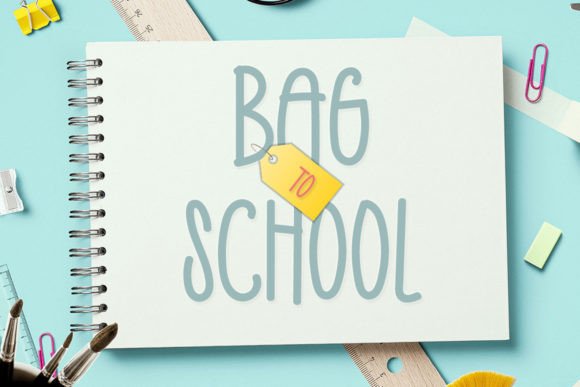
Prepare your designs for a delightful journey back to school with Bag to School Font, a charming handwritten script that exudes a playful and inviting ambiance. Picture the excitement of a new school year, the crisp autumn air, and the anticipation of learning and adventure. Let Bag to School Font capture this essence and bring a touch of enchantment to your projects.
Bag to School Font's playful loops and whimsical strokes create a sense of lightheartedness and joy. It's as if each letter is dancing across the page, eager to share its story. This font is perfect for capturing the essence of childhood, education, and the boundless possibilities that lie ahead.
Whether you're designing school supplies, classroom decorations, or personal stationery, Bag to School Font will add a touch of magic. Imagine your designs adorned with this enchanting script, each letter like a little work of art. Your creations will stand out, captivating the hearts of students and teachers alike.
Bag to School Font is also incredibly versatile, adapting effortlessly to a wide range of projects. Its graceful curves and elegant lines make it suitable for formal invitations, wedding stationery, and branding materials. It can also add a touch of whimsy to social media posts, blog designs, and marketing campaigns.
With Bag to School Font, you can unlock a world of creative possibilities. Let your imagination soar as you explore the endless applications of this charming script. Embrace the joy of learning and embark on a creative adventure with Bag to School Font as your trusty companion.